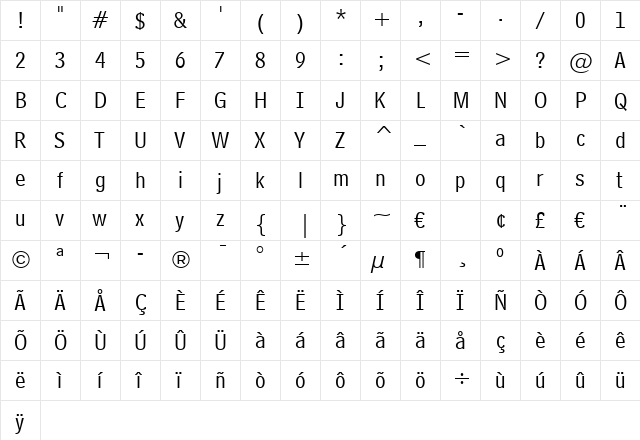
BellCent Add BT Address
Design Context for BellCent Add BT Typeface
BellCent Add BT takes a measured approach to typography — its balanced proportions and neutral character make it a reliable workhorse for both digital and print work.